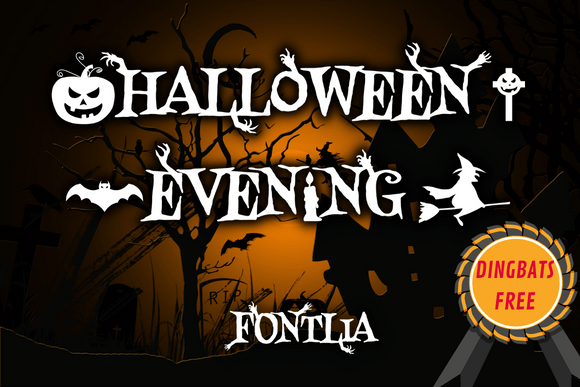
Journey into the haunting realm of Halloween Evening Font, a display font that captures the essence of the spookiest night of the year. With its intricate details, bewitching curves, and spine-tingling charm, this font will add a touch of captivating horror to your designs. Unleash your creativity and let this font work its magic, conjuring up chilling tales and spine-tingling stories.
Picture your words dancing across the page, each letter a phantom, each word a ghostly whisper. Halloween Evening Font will transform your designs into a haunted haven, a place where shadows dance and whispers echo through the night. Embrace the eerie beauty of this font, and watch as your words take on a life of their own, captivating and enchanting your readers with their haunting charm.
Step into the world of Halloween Evening Font, where the ordinary becomes extraordinary, where the mundane transforms into the macabre. Let this font be your guide through the realm of shadows, as you weave tales of haunted houses, eerie graveyards, and creatures of the night. With Halloween Evening Font, you hold the power to evoke goosebumps and send shivers down the spines of your readers.